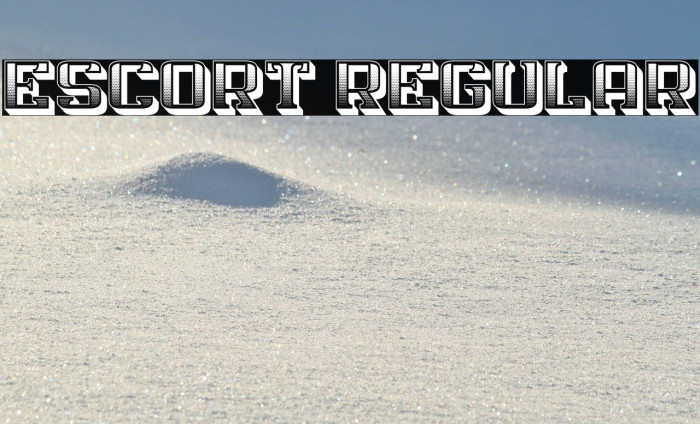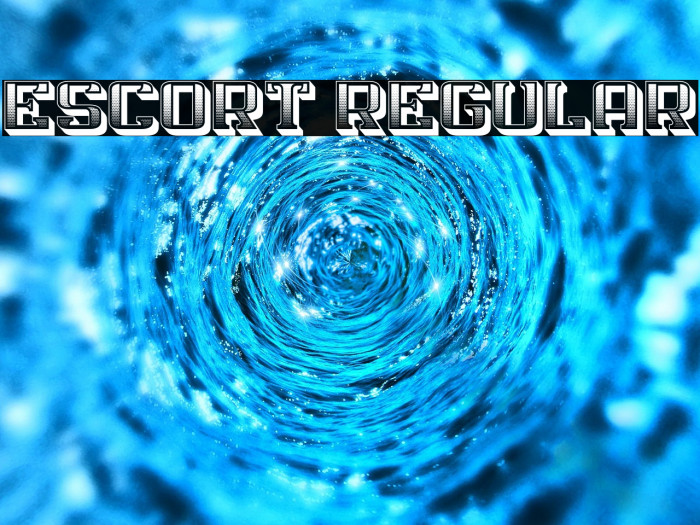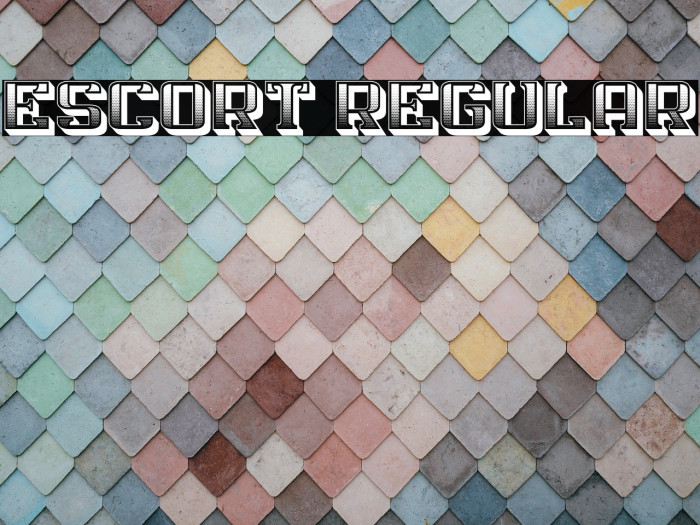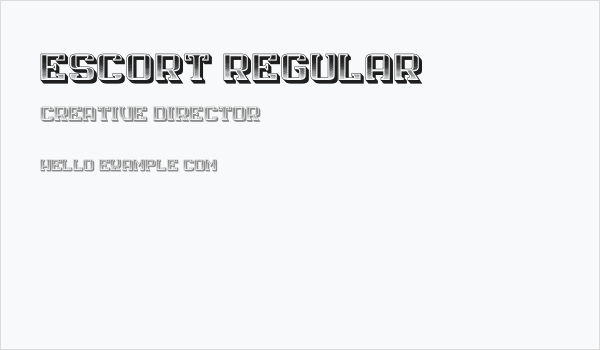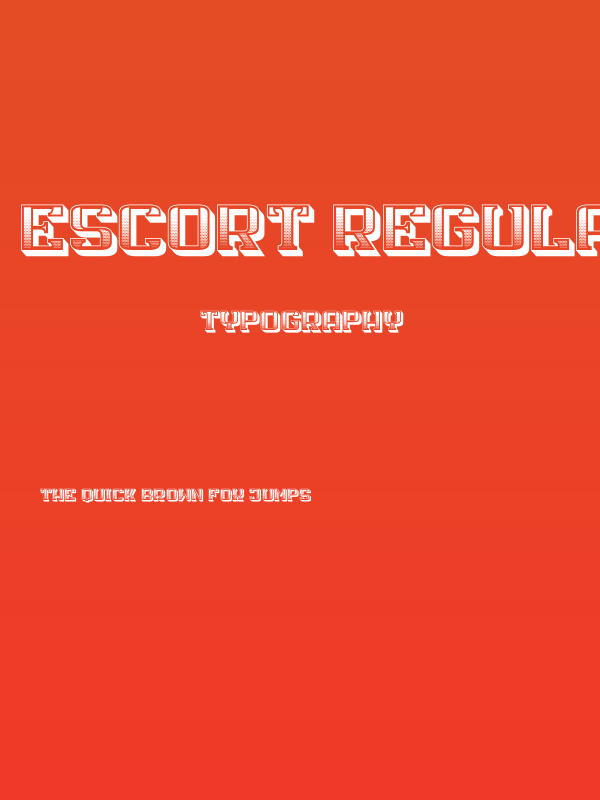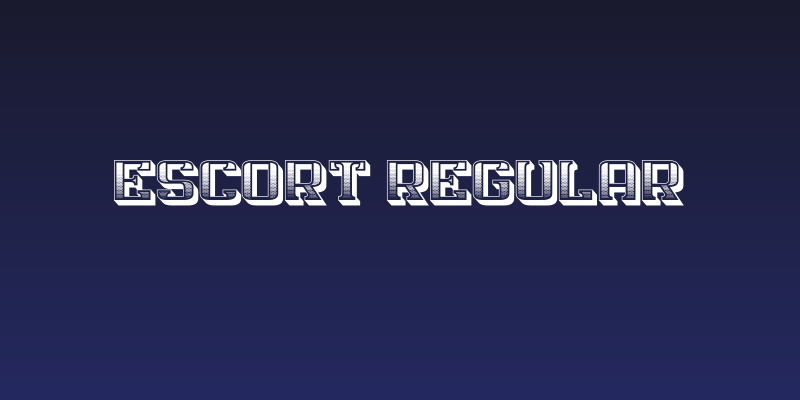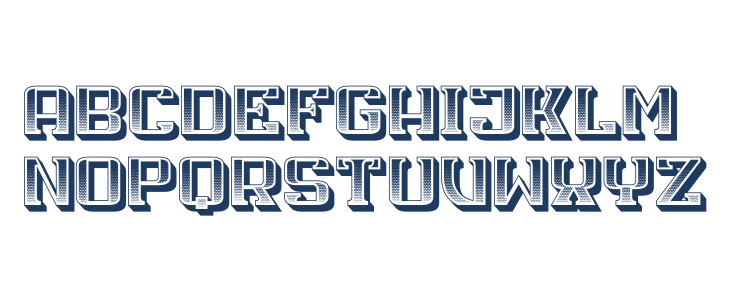
Escort Regular Font
Escort Regular Description
This font features a bold, decorative style with a strong presence. The characters are designed with a three-dimensional effect, incorporating shadowing and intricate detailing that gives each letter a sense of depth. The uppercase letters are particularly striking, with a consistent width and height that ensures uniformity across the typeface. The font's design includes a dotted pattern within each character, adding texture and visual interest. This makes it ideal for eye-catching headlines or titles. The overall aesthetic is both modern and vintage, combining classic serif elements with contemporary design techniques.
| Overall Style | Modern, Vintage |
| Proposed Projects | Ideal for posters, logos, branding materials, and any project requiring a standout, eye-catching typeface. |